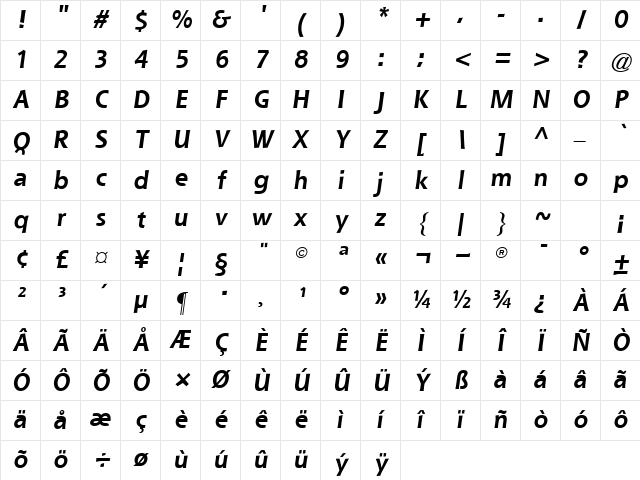
Eke Bold-Oblique
Style: Bold-Oblique
Eke Family
Design Context for Eke
Eke is a composed and adaptable typeface that performs quietly and consistently across a wide range of design contexts. The slanted form adds forward momentum and visual energy. Its bold stroke weight gives it real presence on the page.
Pro Tip: Use Eke for emphasis, pull quotes, and subheadings where its slanted energy can add rhythm to the layout.